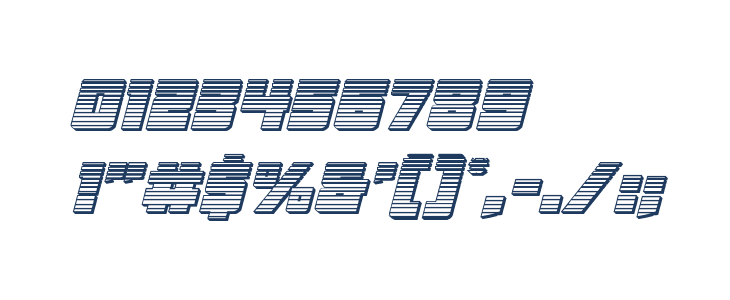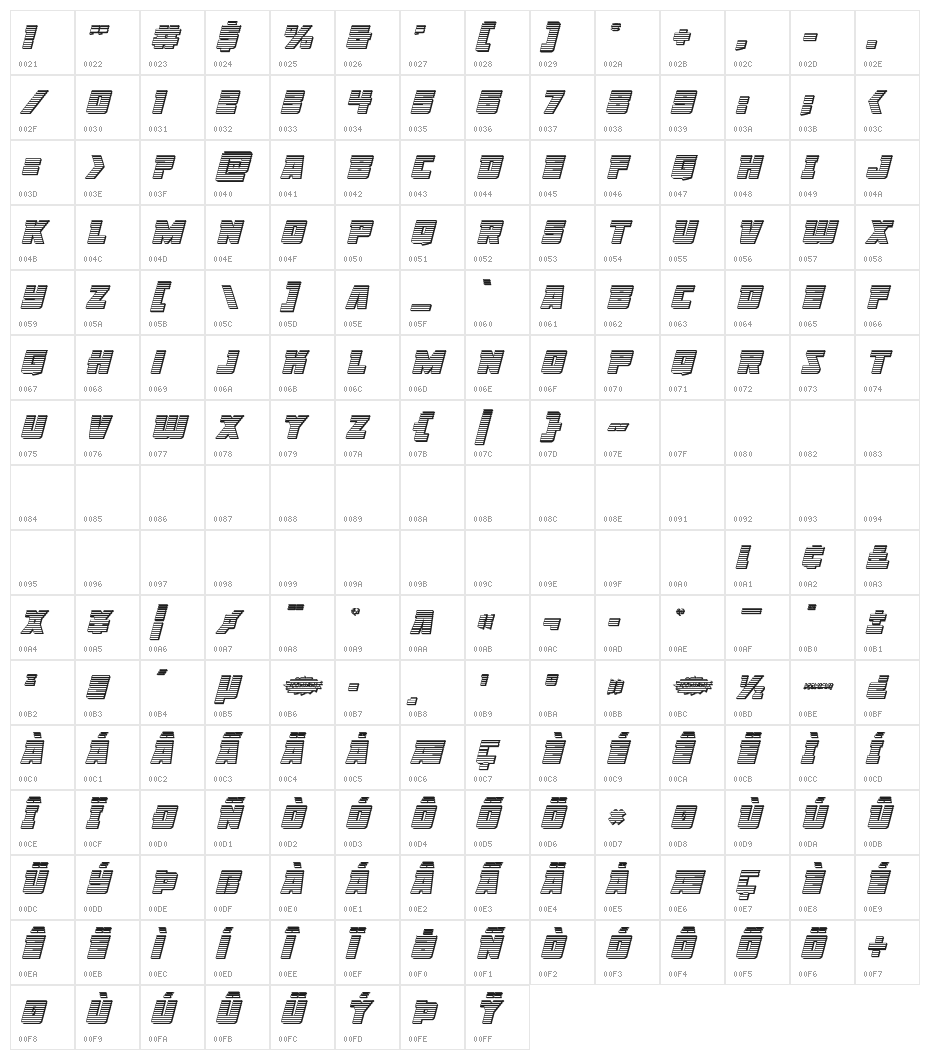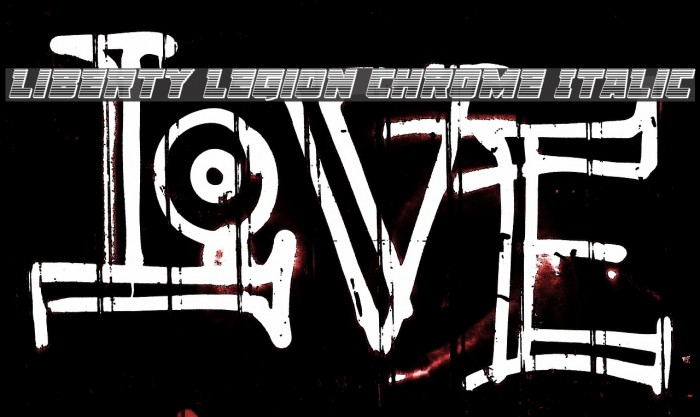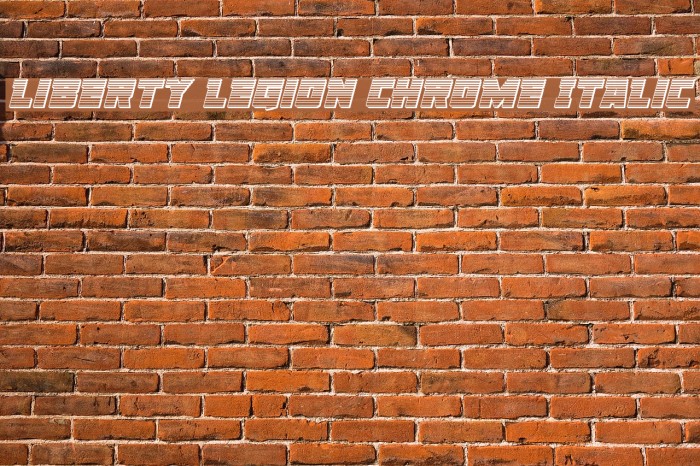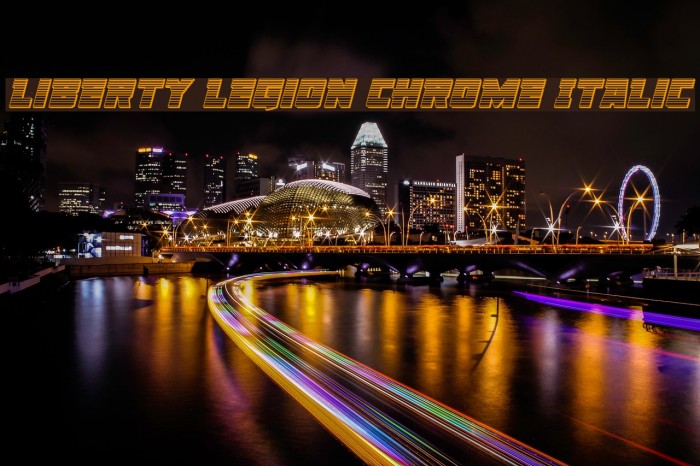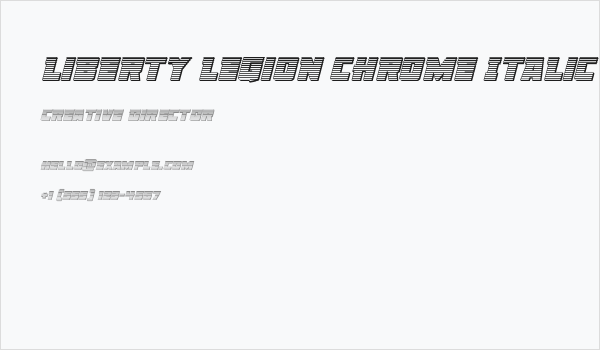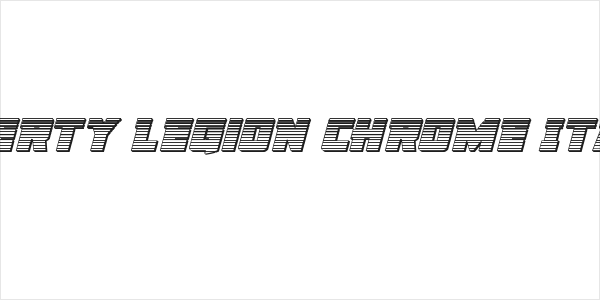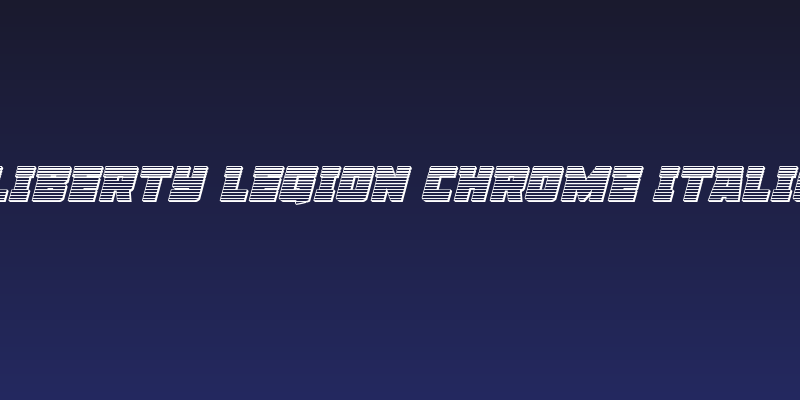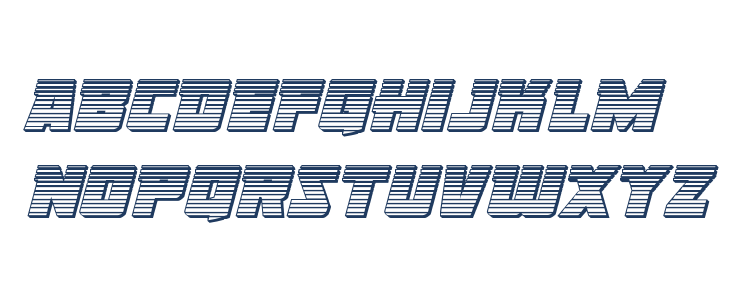
Liberty Legion Chrome Italic Font
Liberty Legion Chrome Italic Description
This font features a bold, futuristic design with a chrome-like appearance. The characters are constructed with multiple horizontal lines, creating a layered effect that gives a sense of depth and dimension. The italic slant adds a dynamic and forward-moving energy, making it ideal for projects that require a modern and edgy look. The uppercase and lowercase letters maintain a consistent style, while the numbers and special characters complement the overall aesthetic. The font's unique style is perfect for attention-grabbing headlines or logos that need to stand out.
| Overall Style | Futuristic, Modern |
| Proposed Projects | Ideal for sci-fi themed posters, video game titles, tech company logos, and futuristic branding. |